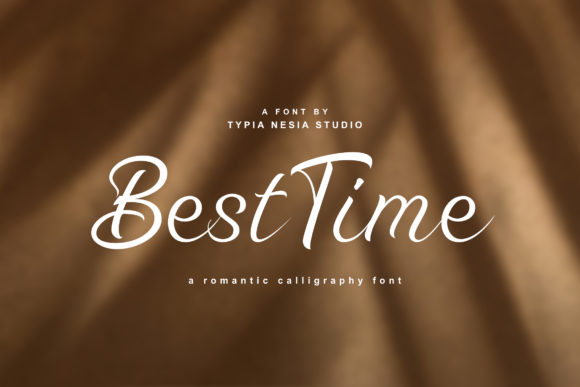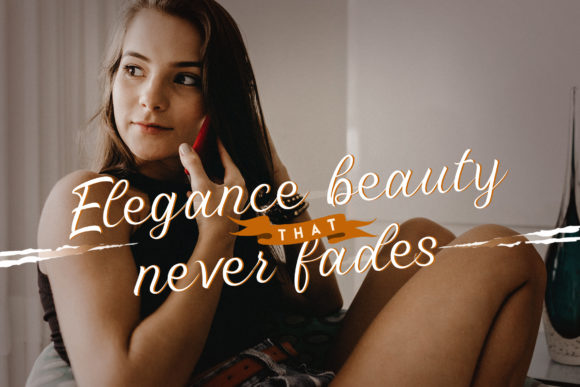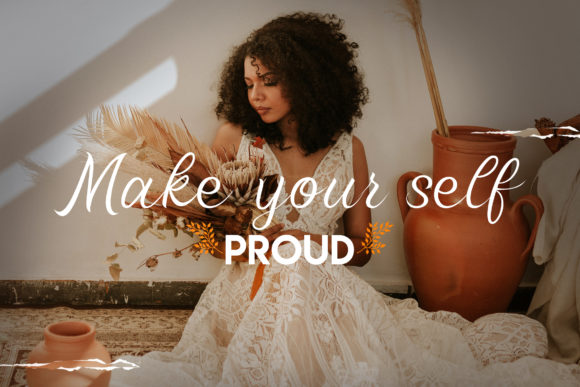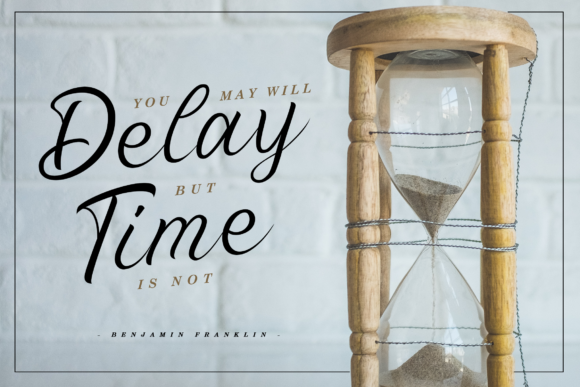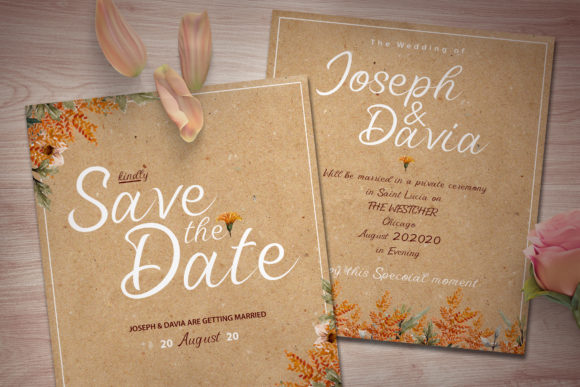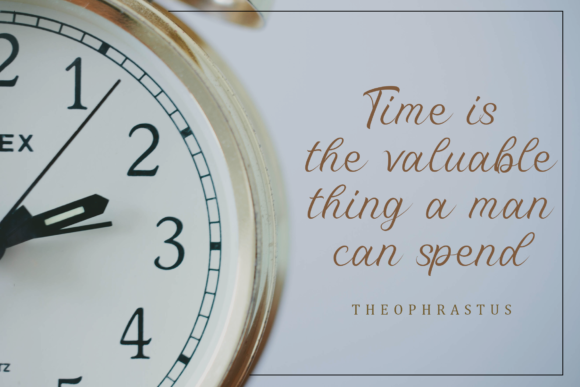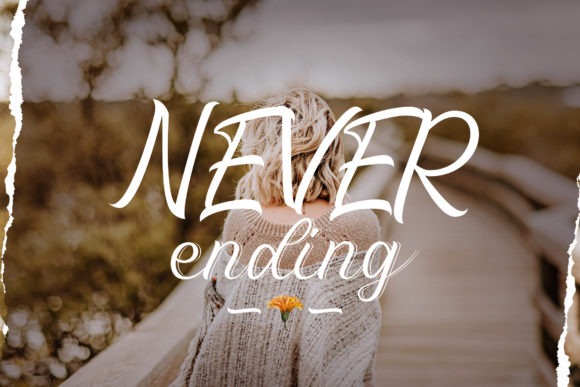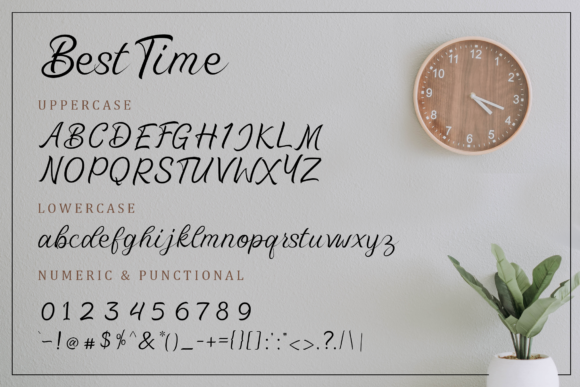
Best Time Font
About Best Time Font
Best Time is a beautiful script font inspired by natural handwriting. It is perfectly suited for a wide variety of projects!